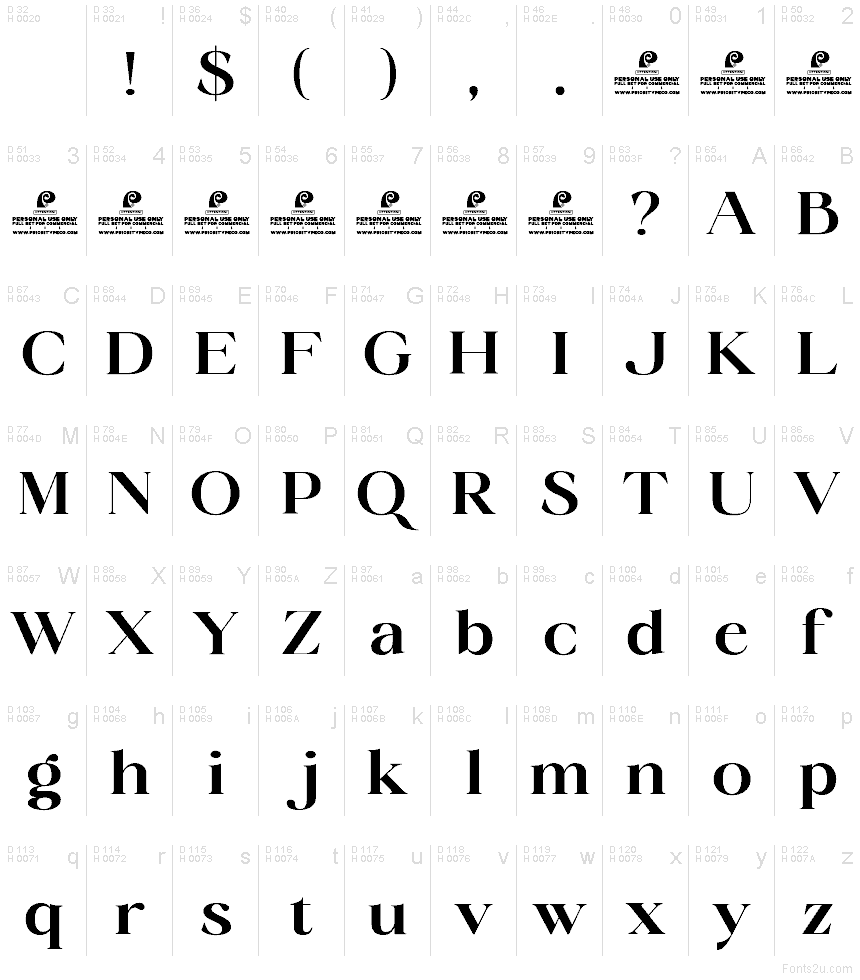
Radiant Charisma DEMO Semi Bold
Radiant Charisma Semi Bold font by Prioritype Co is a free serif font that exudes charm and beauty. Its gentle curves, yet still clear letterforms make it as professional as ever with all characters ready to be employed on new logotypes and branding projects.
Delight in its modern elegance and refined aesthetics for invitations, magazines, cards, writing paper designs, social media posts, websites, blogs, marketing campaigns’ visuals like ads and banners among others.